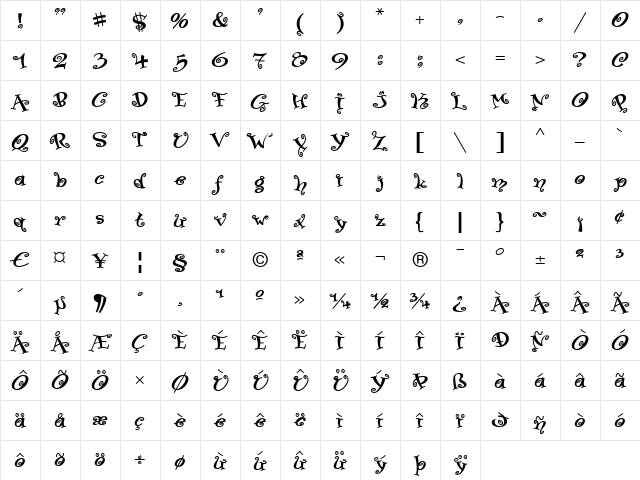
PaisleyICG Regular
Design Context for PaisleyICG Typeface
PaisleyICG is a composed and adaptable typeface that performs quietly and consistently across a wide range of design contexts.